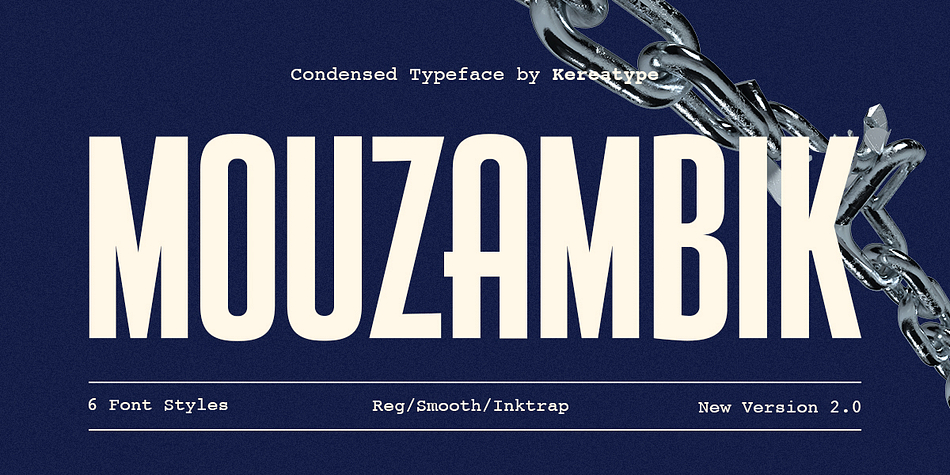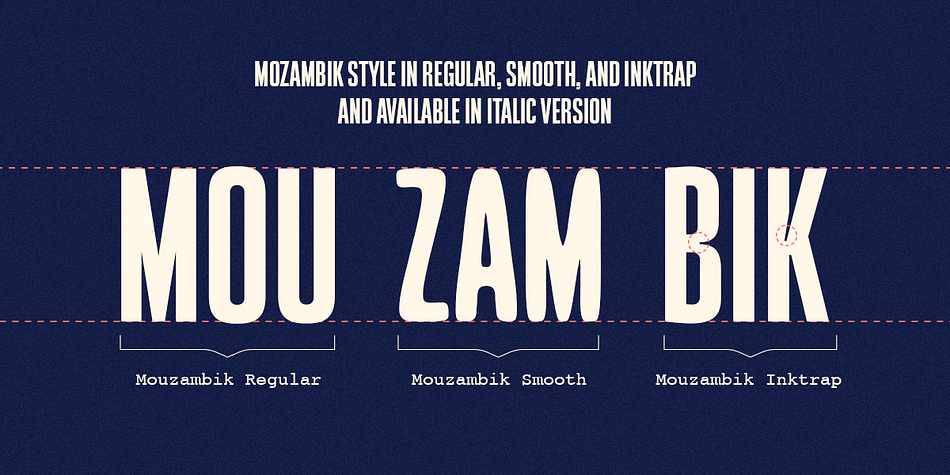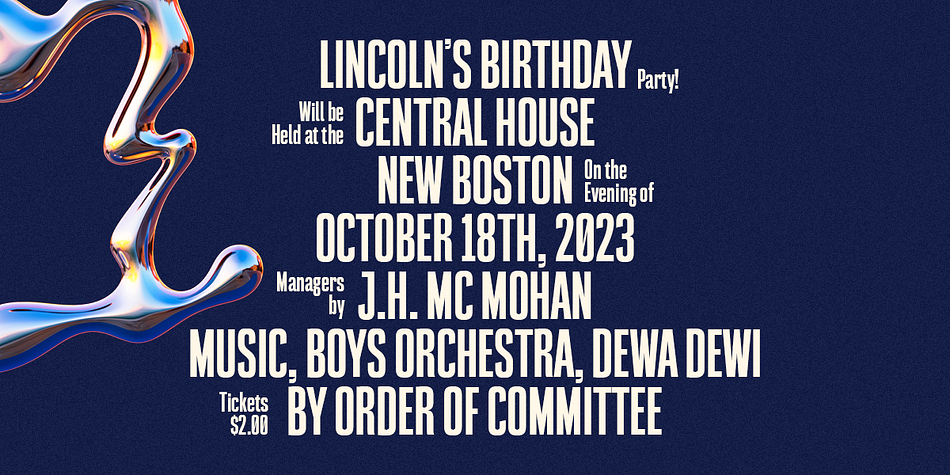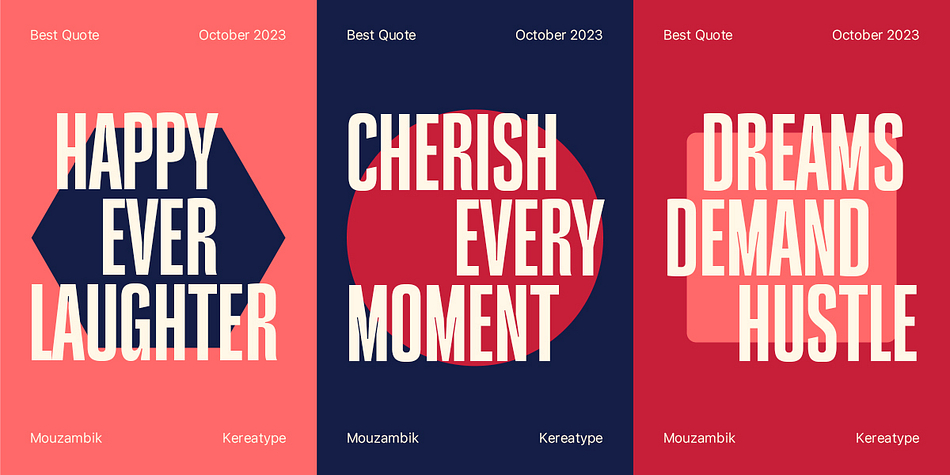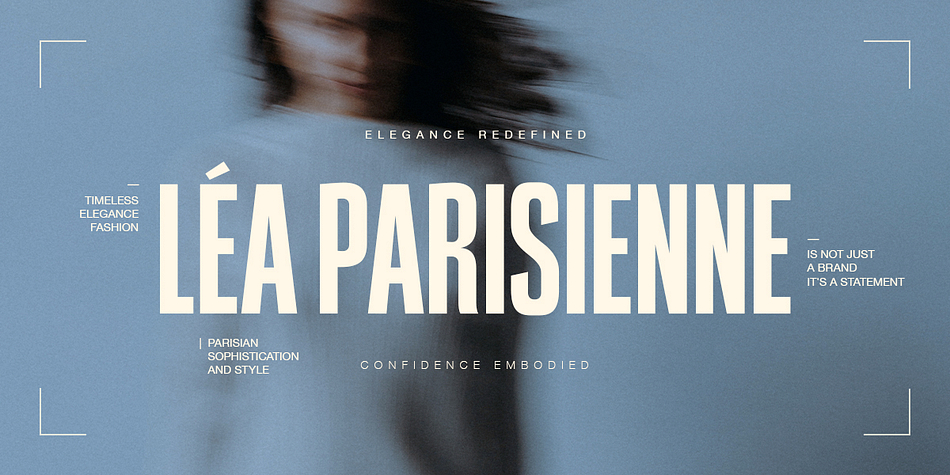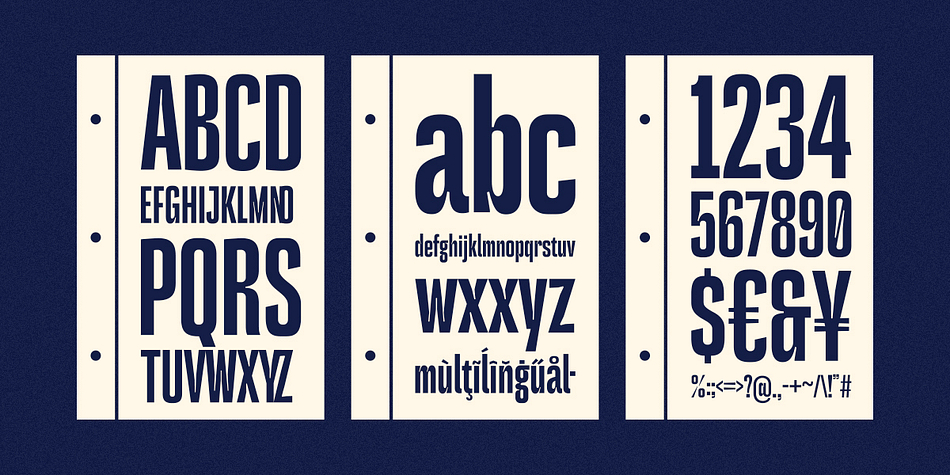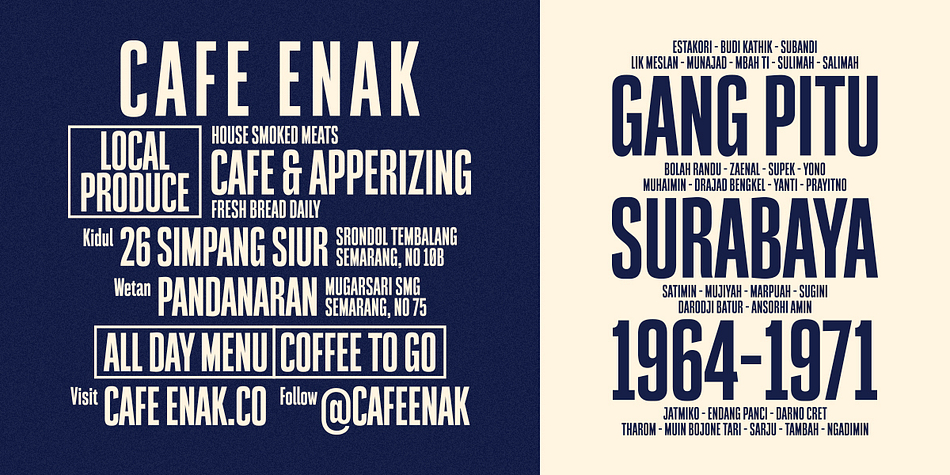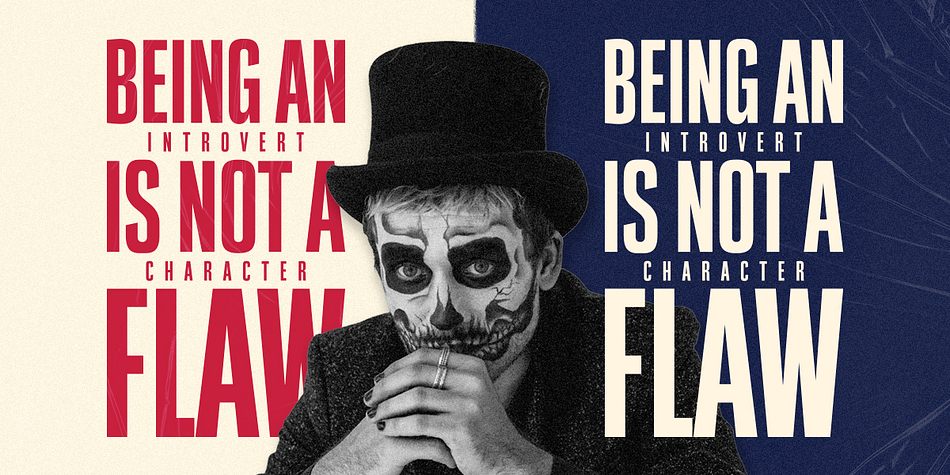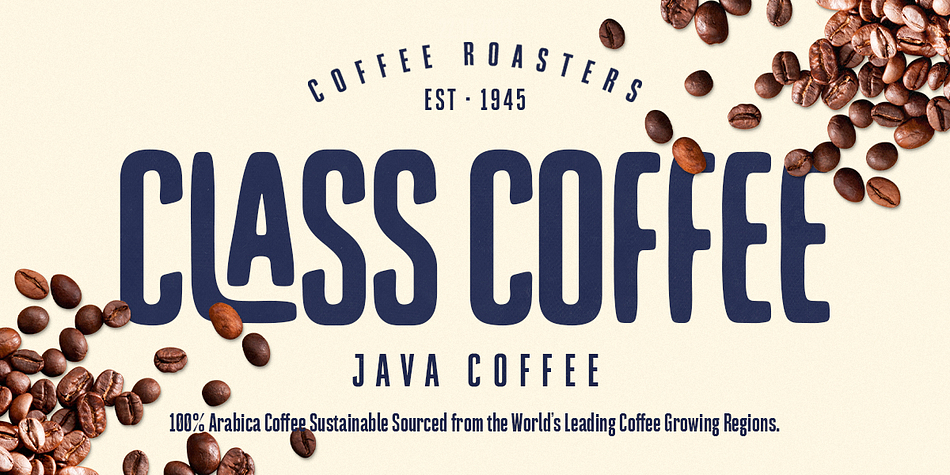
Mouzambik
Mouzambik is a sans serif font family. This typeface has six styles and was published by Kereatype.
Mouzambik is a simple, condensed sans-serif font with a bold and intricate personality. It comes in three styles: regular, Inktrap, and Smooth, each with italics. Crafted with intention, it maintains its allure in both large and small point sizes.
This font is ideal for headlines, billboards, magazines, websites, titles, posters, branding, and logos. With an abundance of ligatures, alternates, and other features to choose from, you can ensure your project stands out from the rest.